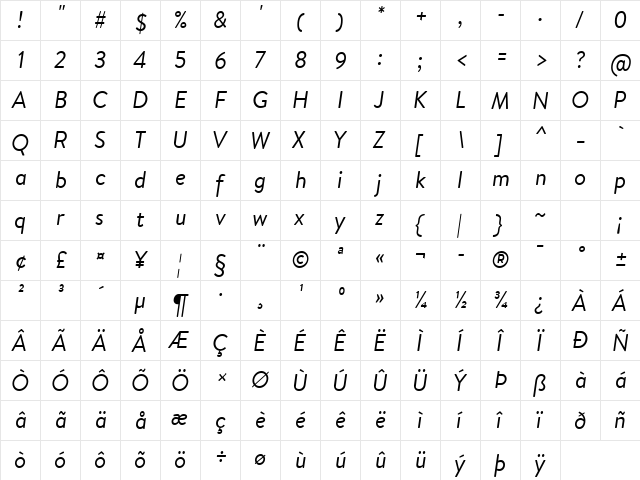
Brandon Text Regular Italic
| Foundry | Hannes von Doehren |
| Designer | Hannes von Doehren |
Design Context for Brandon Text Regular Typeface
Brandon Text Regular is a composed and adaptable typeface that performs quietly and consistently across a wide range of design contexts. The slanted form adds forward momentum and visual energy.
Pro Tip: Use Brandon Text Regular for emphasis, pull quotes, and subheadings where its slanted energy can add rhythm to the layout.